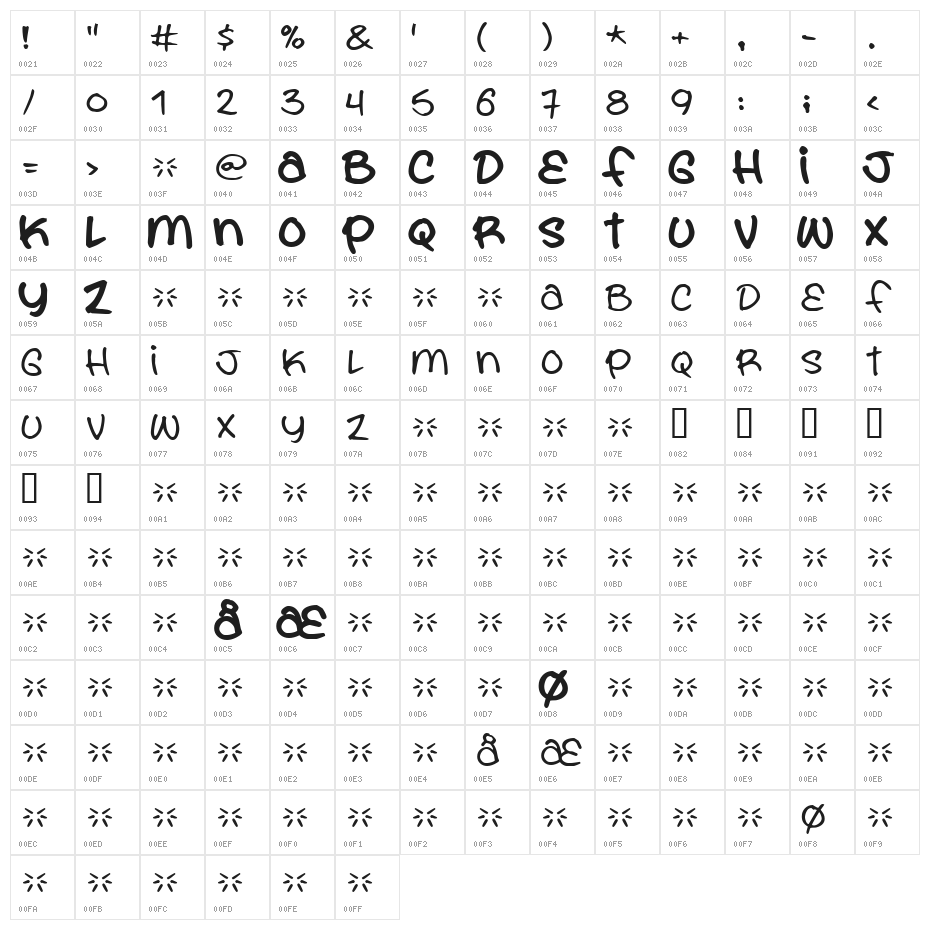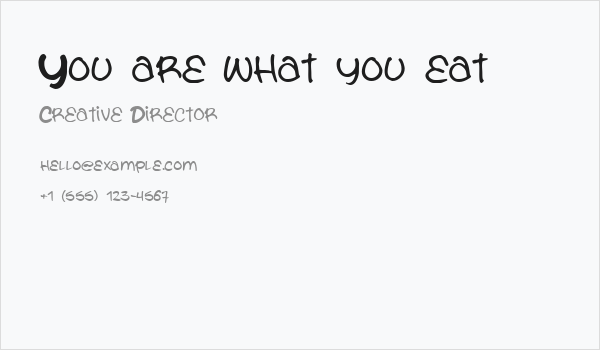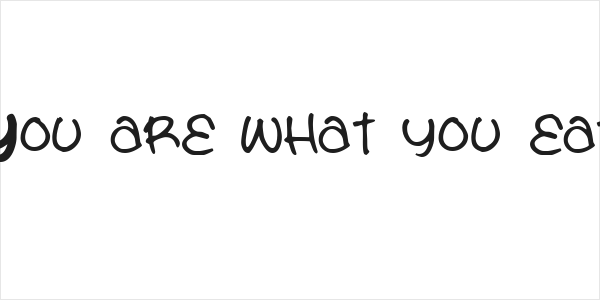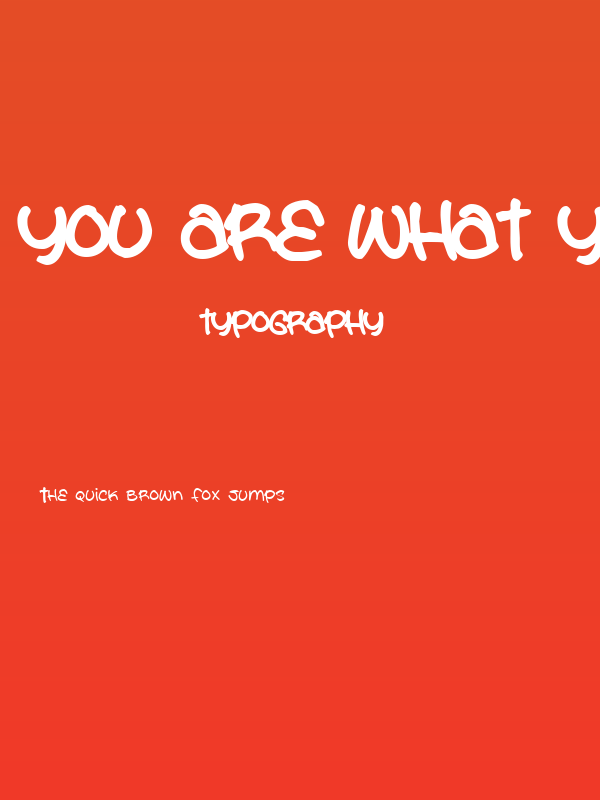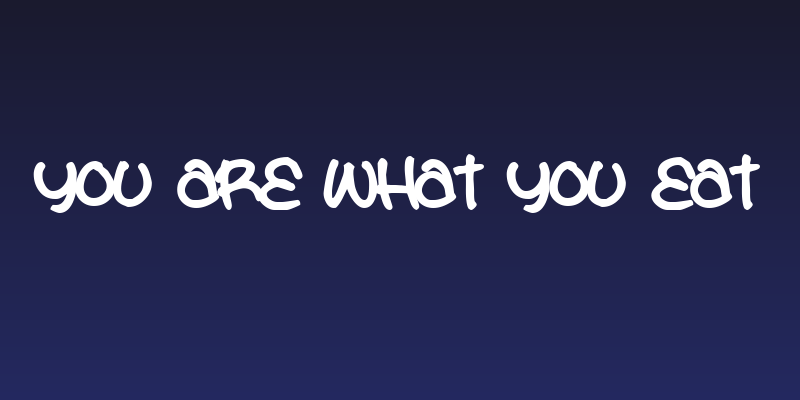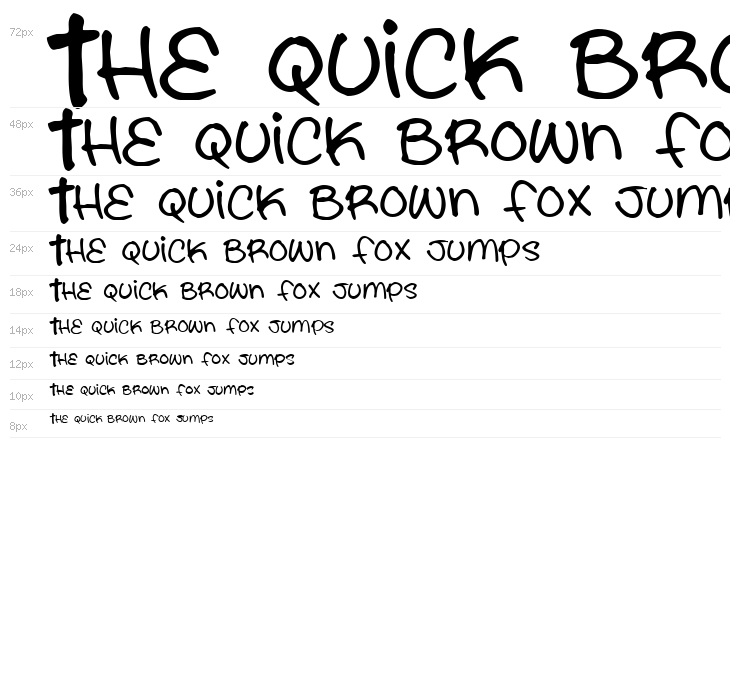
You are what you eat Font
You are what you eat Description
This playful and energetic font features a handwritten style with bold, rounded strokes. The letters exhibit a casual and informal appearance, reminiscent of graffiti or street art. The uppercase and lowercase characters maintain a consistent flow, with slightly exaggerated curves and loops that add to its dynamic feel. The numbers and special characters follow the same lively design, making the font versatile for various creative applications. Its boldness ensures readability while maintaining a fun and engaging aesthetic.
| Proposed Projects | Ideal for children's book covers, playful branding, posters, and social media graphics. |